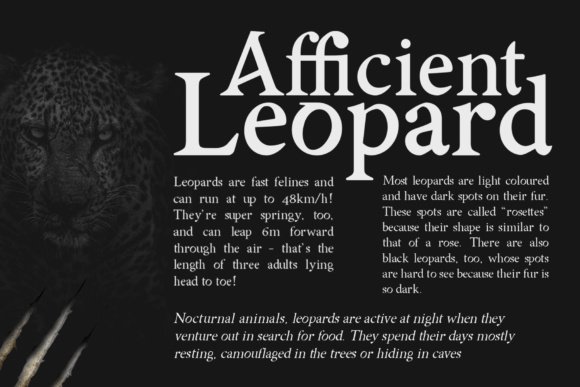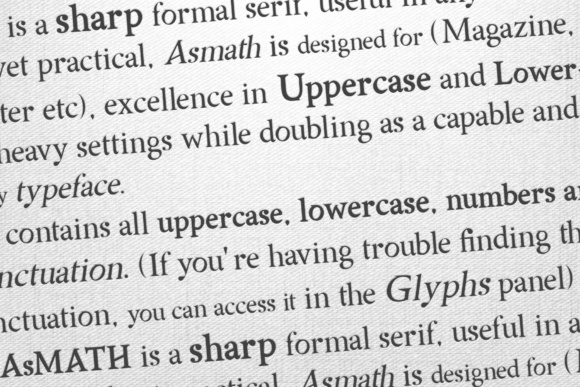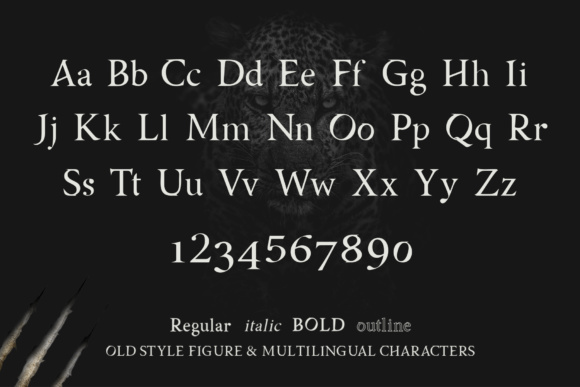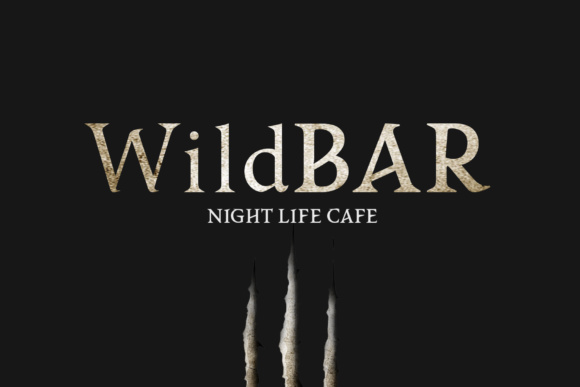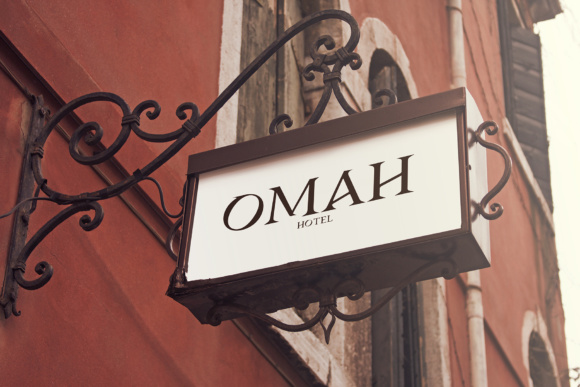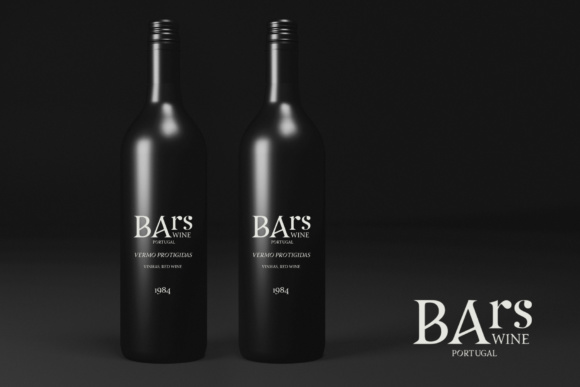
The Perfect Blend of Form and Function: Introducing Asmath Font
Do you remember that moment when you finally found the perfect font to elevate your design project? For designers, it’s a thrill like no other – the perfect combination of aesthetics and functionality can make all the difference. That’s exactly what the Asmath Font offers, a sharp formal serif that’s both beautiful and practical.
The Asmath Font is designed to excel in various projects, from magazines to logos, posters, and more. Its versatility and strength make it an ideal choice for any designer looking to create visually stunning content. Whether you’re working on a text-heavy setting or need a capable display typeface, the Asmath Font is sure to impress.
- Unique Characteristic: The font features a unique blend of modern and vintage elements, making it perfect for creating a distinctive and eye-catching design.
Asmath Font Review
Asmath Font is an elegant and sophisticated font that exudes a sense of luxury and refinement. It’s perfect for designers looking to add a touch of class to their projects. ✨ I love the intricate details and the way the font curves and flows, making it a great choice for titles and headings.
- Unique and elegant design that stands out from the crowd
- Perfect for luxury brands, high-end designs, and sophisticated projects
- Works well in both digital and print media
- Wide range of font weights and styles available
However, Asmath Font is not without its limitations. ⚠️ I’ve noticed that the font can be quite heavy and dense, which may not be suitable for smaller text sizes or body copy. Additionally, the font may not be as readable in certain screen resolutions or devices.
Overall, I think Asmath Font is a great choice for designers who want to add a touch of luxury and sophistication to their projects. While it may have some limitations, the unique design and wide range of font weights and styles make it a versatile and valuable addition to any design arsenal.
Tips for Getting the Most Out of Asmath Font
Here are some tips to help you get the most out of the Asmath font:
– Use it in conjunction with other fonts to create a visually appealing design.
– Experiment with different font sizes and styles to create emphasis and hierarchy.
– Use the font in a limited capacity to avoid overuse and maintain visual interest.
The Asmath font is commonly used in:
– Print materials such as business cards and brochures
– Digital design such as social media graphics and website headers
Comparison to Asmath Font: Montserrat has a more geometric and modern feel, whereas Asmath Font has a more rounded and friendly appearance. Montserrat is also more suitable for digital use due to its optimized spacing and letterforms.
Comparison to Asmath Font: Inter has a more neutral and balanced feel, whereas Asmath Font has a more playful and rounded appearance. Inter is also more suitable for a wide range of design applications due to its high legibility and adaptability.
Q: Is Asmath Font available in different weights and styles?
Yes, the Asmath Font family includes a range of weights and styles, including light, regular, medium, bold, and italic. This allows you to create a consistent and cohesive visual identity across your designs. You can explore the available weights and styles in your design software or on the font vendor’s website.